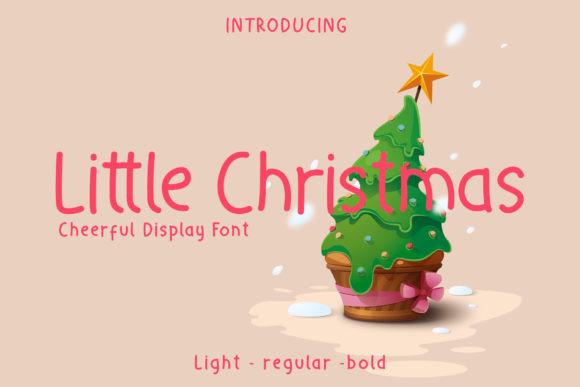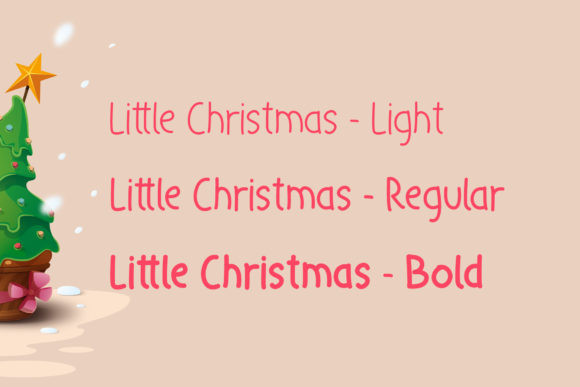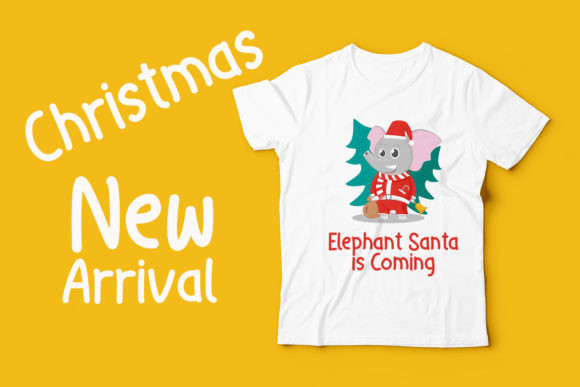
Little Christmas Font
Little Christmas is a fun display font, perfect for adding a festive vibe to your holiday crafts! It’s great for branding projects, logo, wedding designs, social media posts, advertisements, product packaging, product designs, labels, photography, watermarks, invitations, stationery and much more!